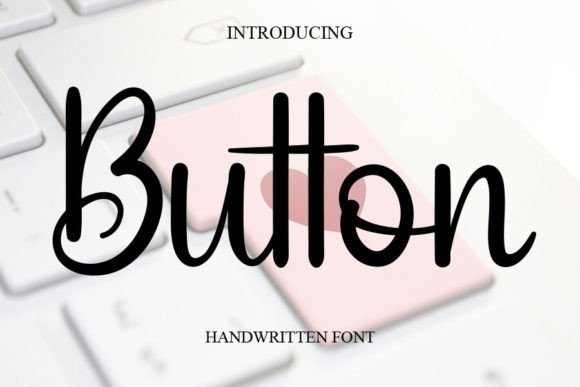
Introducing Button Font: The Cool and Modern Handwritten Font
Are you tired of using the same old fonts for your digital designs, presentations, and greeting cards? Look no further than Button Font, a cool and modern handwritten font that’s sure to become your new go-to. In this article, we’ll take a closer look at Button Font, its features, and how you can use it to elevate your designs.
What is Button Font?
Button Font is a beautifully crafted handwritten font that’s perfect for a variety of design projects. Its unique and modern style makes it stand out from other fonts, and its versatility ensures that it can be used for everything from crafts to digital design, presentations, and even making greeting cards.
Features of Button Font
So, what makes Button Font so special? Here are just a few of its key features:
- Handwritten style: Button Font has a beautiful, handwritten style that’s perfect for adding a personal touch to your designs.
- Modern and cool: This font has a modern and cool vibe that’s sure to make your designs stand out.
- Versatile: Button Font can be used for a wide range of design projects, from crafts to digital design, presentations, and more.
- Easy to read: Despite its handwritten style, Button Font is easy to read, making it perfect for use in body text.
Uses for Button Font
So, how can you use Button Font in your designs? Here are just a few ideas to get you started:
Crafts
Button Font is perfect for use in crafts, such as scrapbooking, journaling, and card making. Its handwritten style adds a personal touch to your projects, making them truly special.
Digital Design
Button Font is also great for use in digital design, such as in social media graphics, blog posts, and website headers. Its modern and cool style is sure to make your designs stand out.
Presentations
If you’re looking for a font to use in your presentations, Button Font is a great choice. Its easy-to-read style makes it perfect for use in body text, and its modern style ensures that your presentations will look professional and sleek.
Greeting Cards
Button Font is also perfect for use in greeting cards, such as birthday cards, thank you cards, and holiday cards. Its handwritten style adds a personal touch to your cards, making them truly special.
Tips for Using Button Font
Here are a few tips for using Button Font in your designs:
- Use it sparingly: While Button Font is a beautiful font, it’s best to use it sparingly. Use it for headings or titles, and pair it with a simpler font for body text.
- Experiment with colors: Button Font looks great in a variety of colors, so don’t be afraid to experiment. Try using it in different colors to add visual interest to your designs.
- Pair it with other fonts: Button Font pairs well with a variety of other fonts, so try pairing it with different fonts to create a unique look.
In conclusion, Button Font is a cool and modern handwritten font that’s perfect for a variety of design projects. Its unique and modern style makes it stand out from other fonts, and its versatility ensures that it can be used for everything from crafts to digital design, presentations, and even making greeting cards. With its easy-to-read style and beautiful handwritten look, Button Font is sure to become your new go-to font.
What is Button Font?
Button Font is a cool and modern handwritten font that’s perfect for a variety of design projects.
What can I use Button Font for?
Button Font can be used for a wide range of design projects, including crafts, digital design, presentations, and making greeting cards.
Is Button Font easy to read?
Yes, Button Font is easy to read, making it perfect for use in body text.